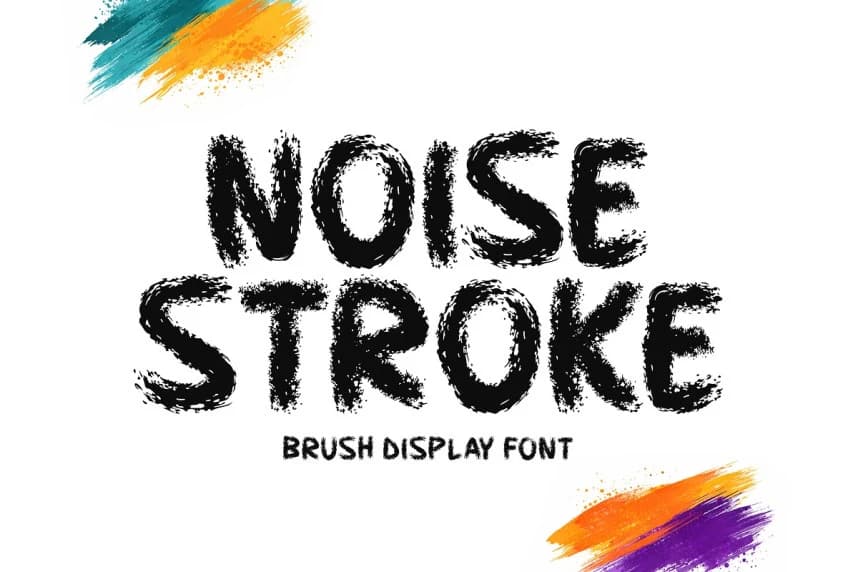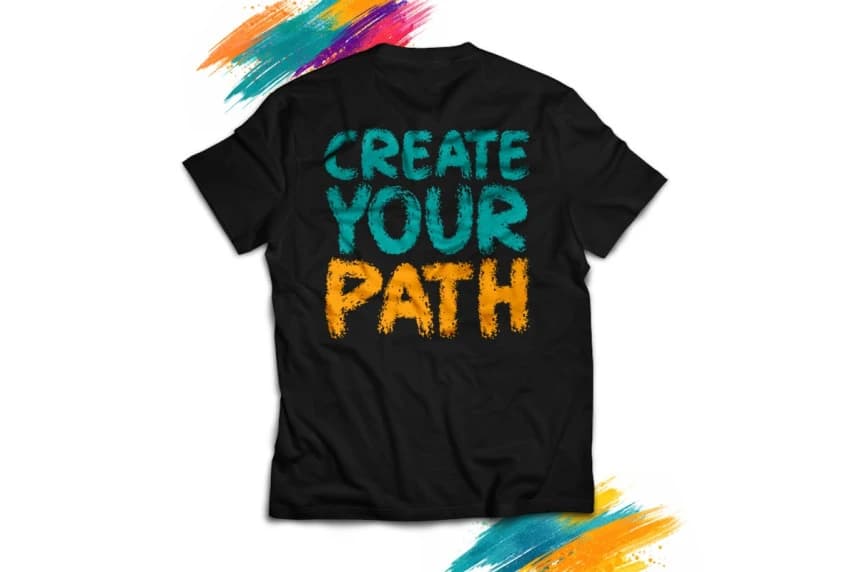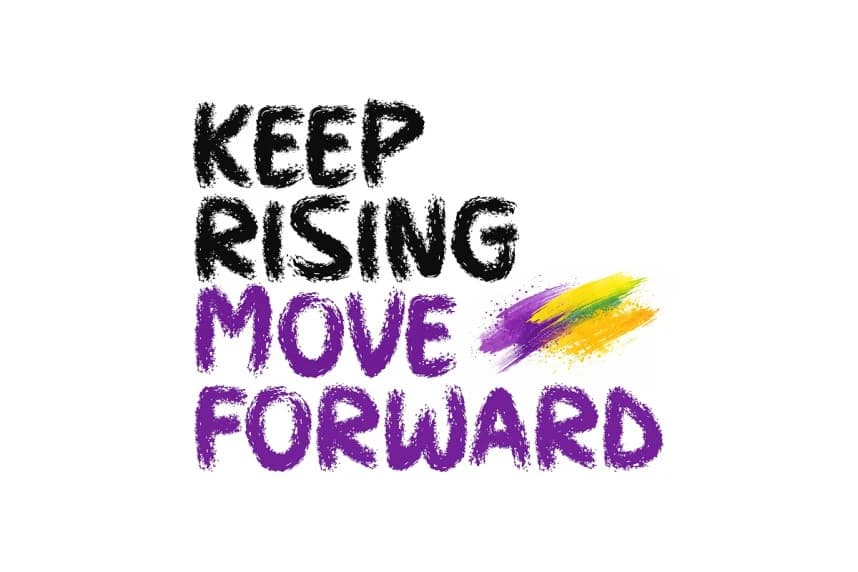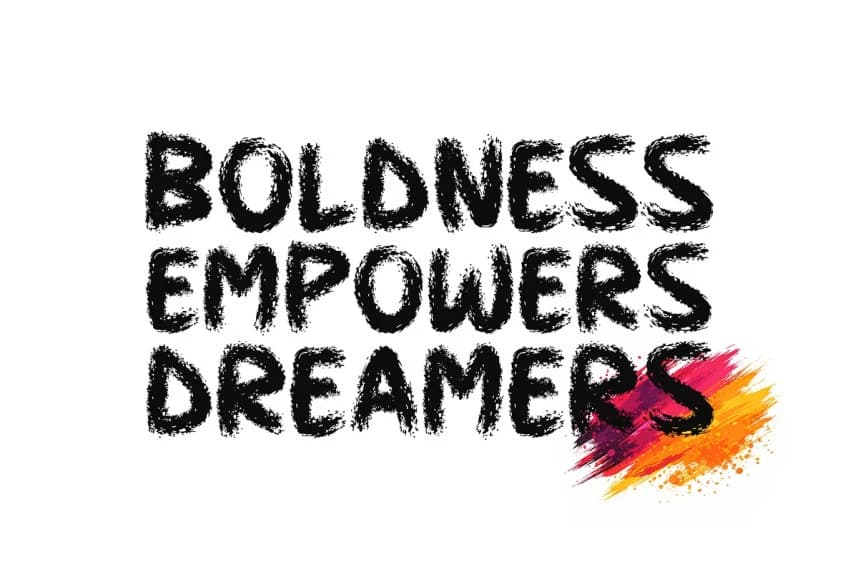
Noise Stroke Font
Noise Stroke Font is a bold brush display font with raw texture and expressive strokes. Its rough, hand-painted style adds strong character and powerful impact to headlines, posters, branding, and creative designs.